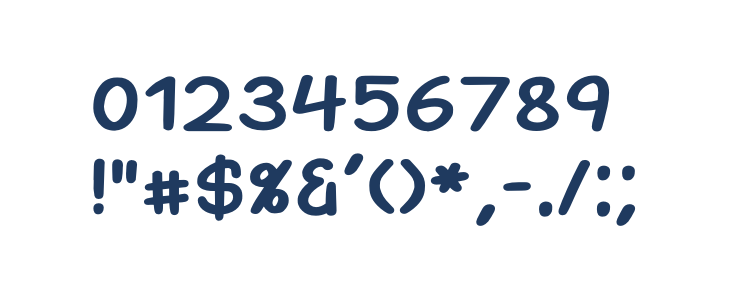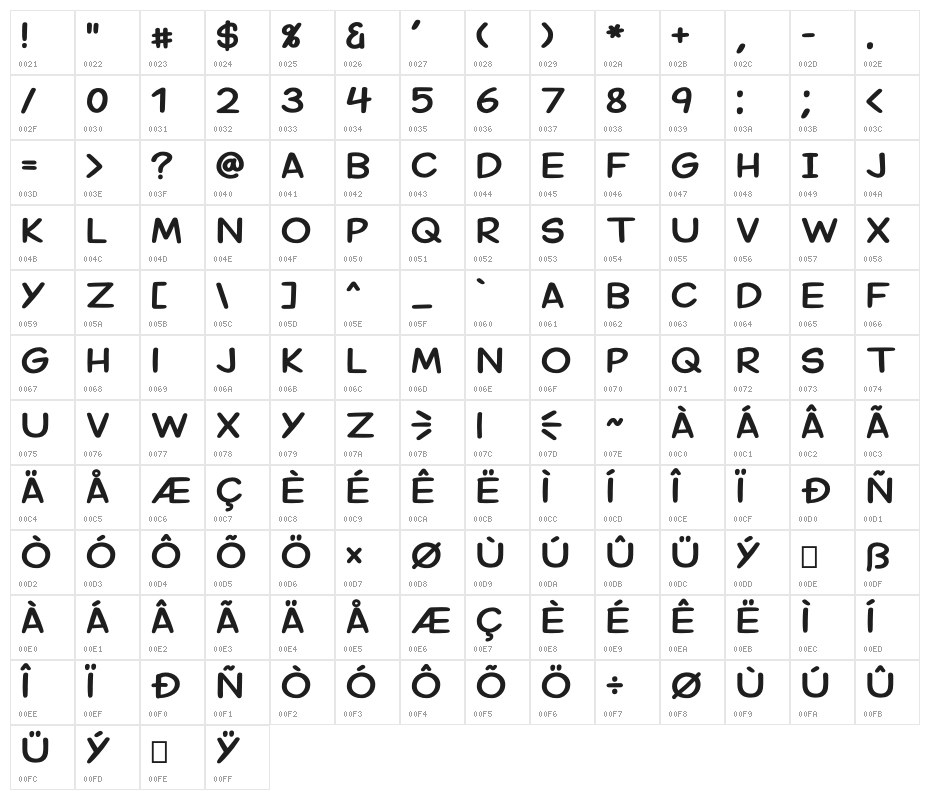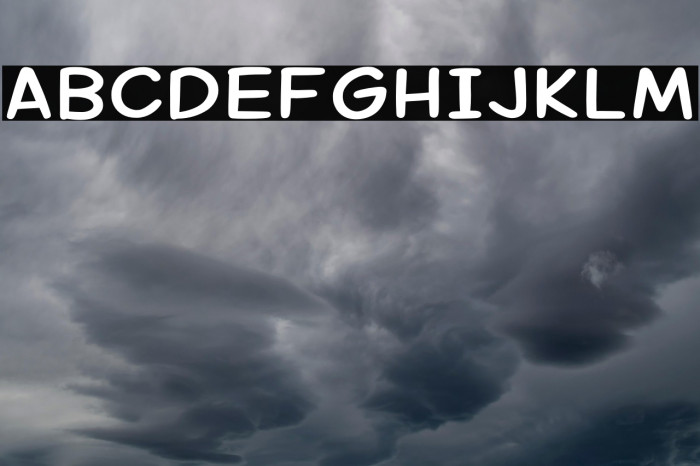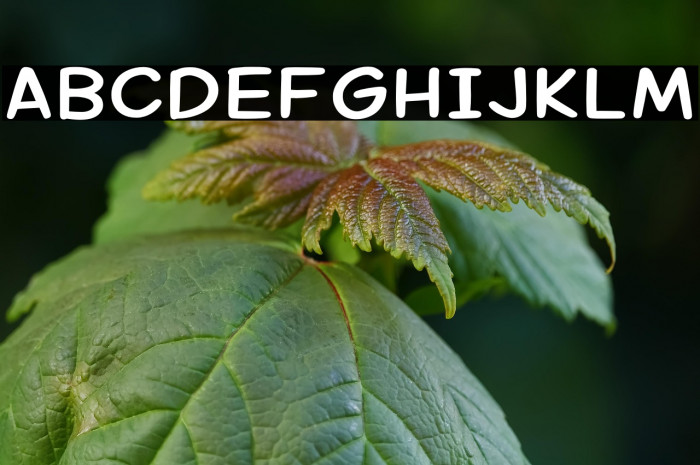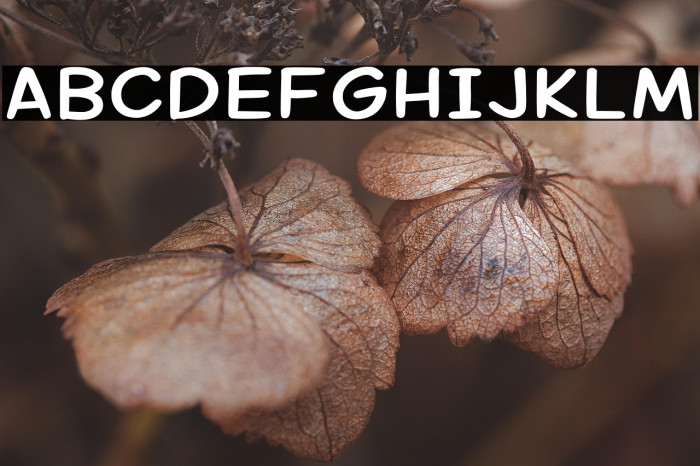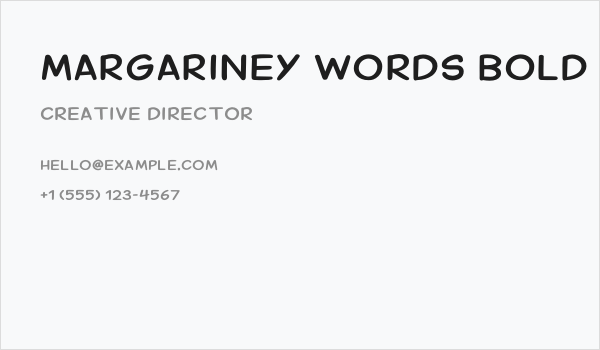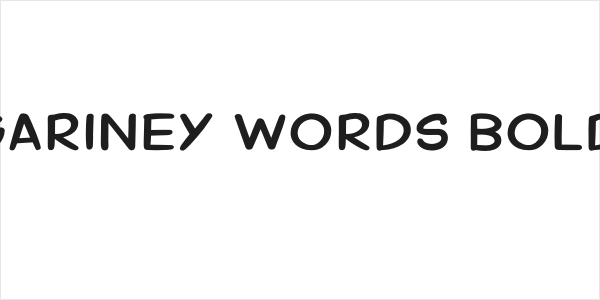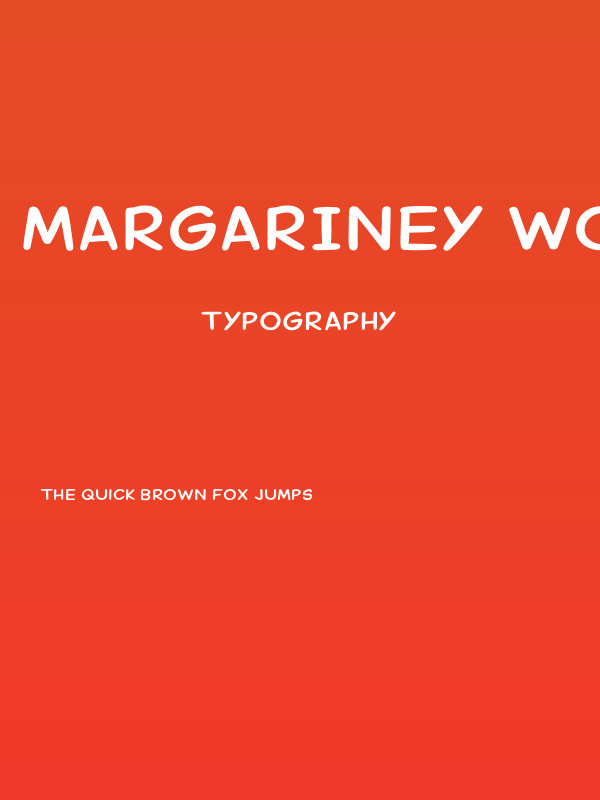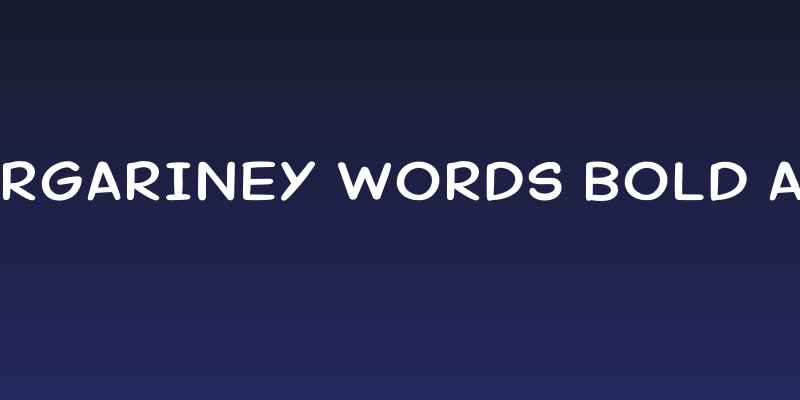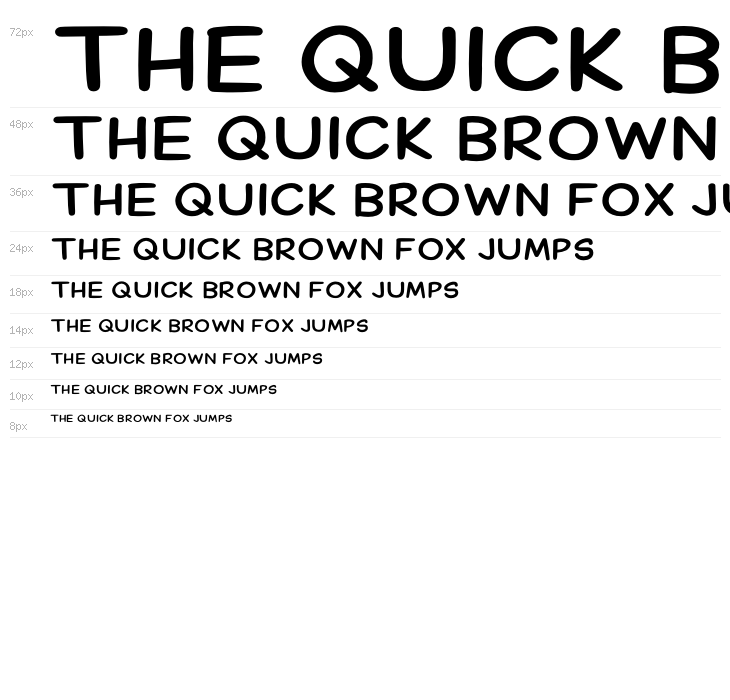
Margariney Words Bold Alt Font
Margariney Words Bold Alt Description
This font features a playful and rounded style, characterized by its bold and smooth curves. The letters are evenly spaced, with a consistent thickness that gives it a friendly and approachable appearance. The uppercase and lowercase letters maintain a uniform height, contributing to its cohesive look. The numerals and special characters are designed to match the overall aesthetic, making it versatile for various uses. Its boldness ensures readability while the rounded edges add a touch of whimsy, making it suitable for creative and informal designs.
| Proposed Projects | Ideal for children's books, playful branding, casual invitations, and creative posters. |